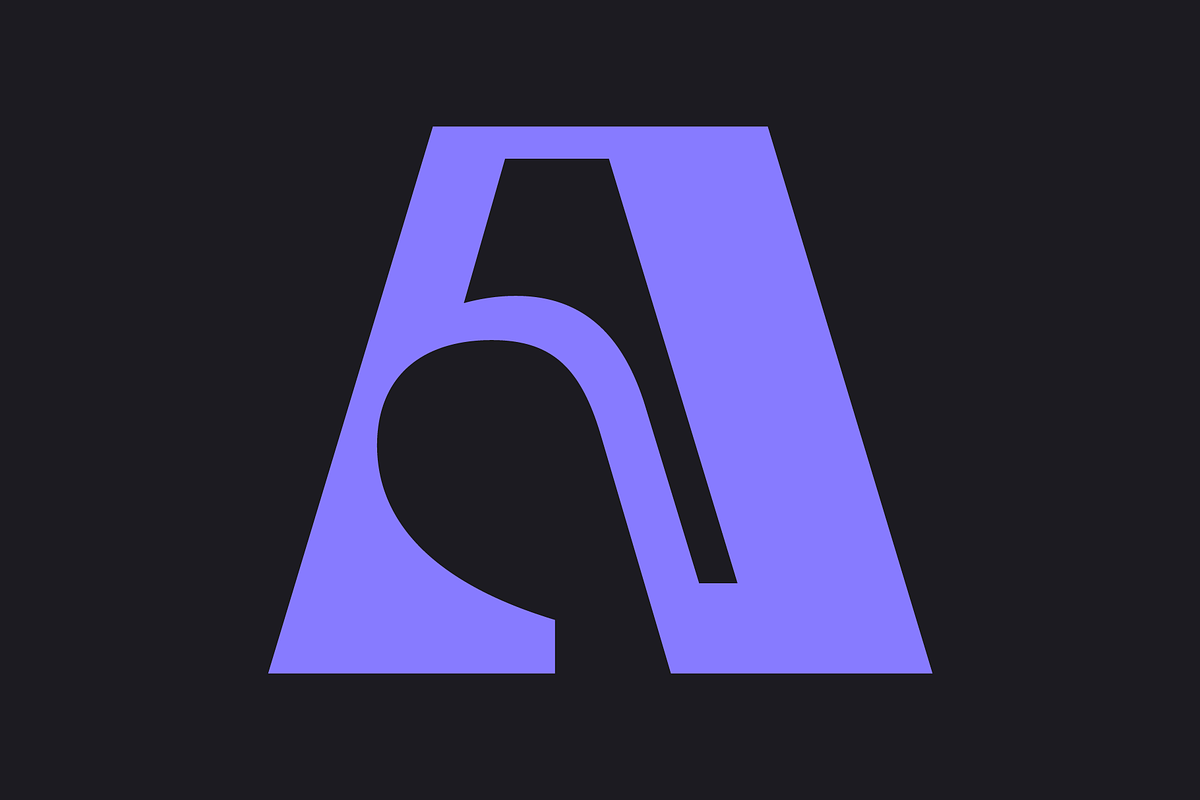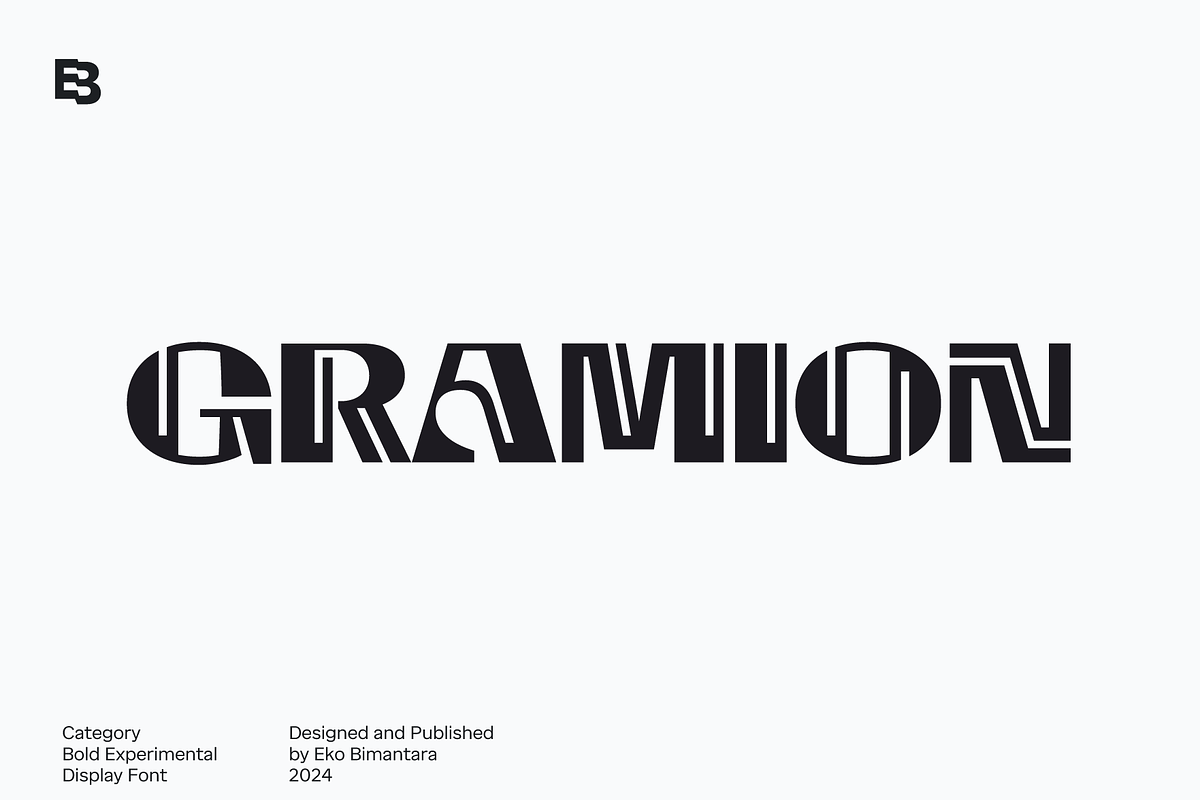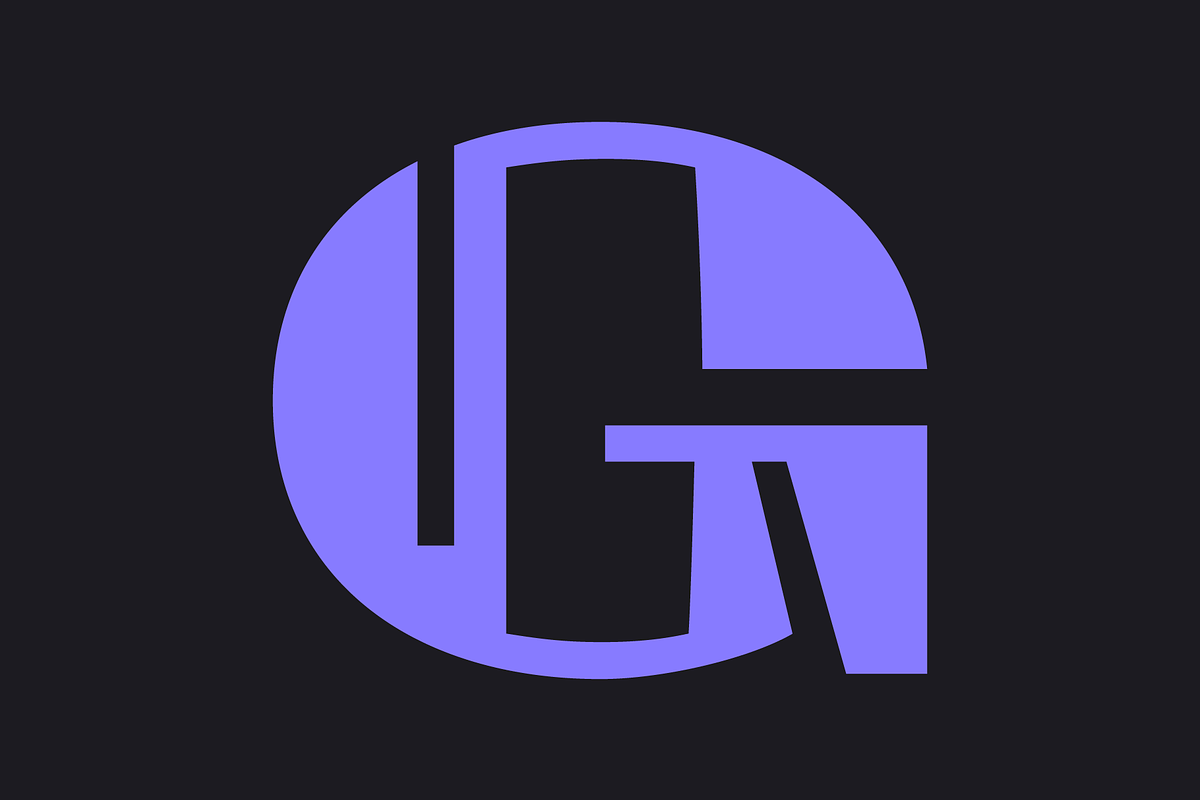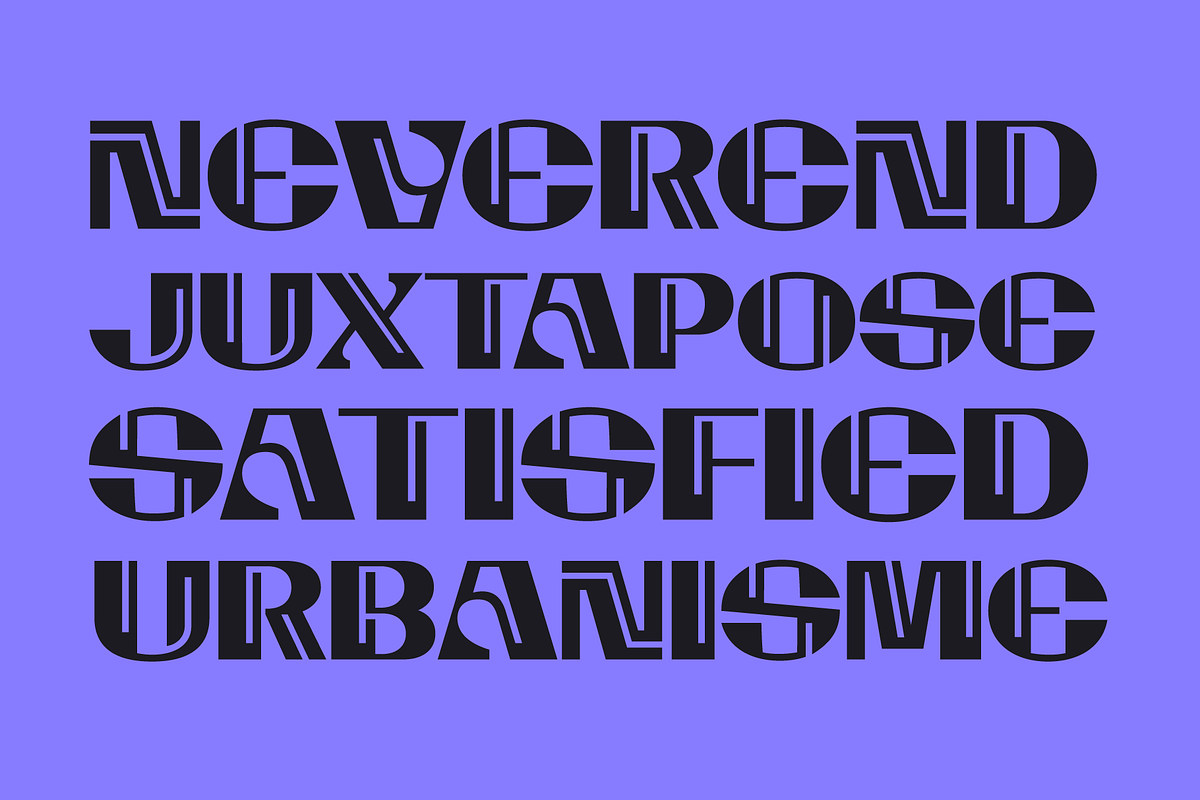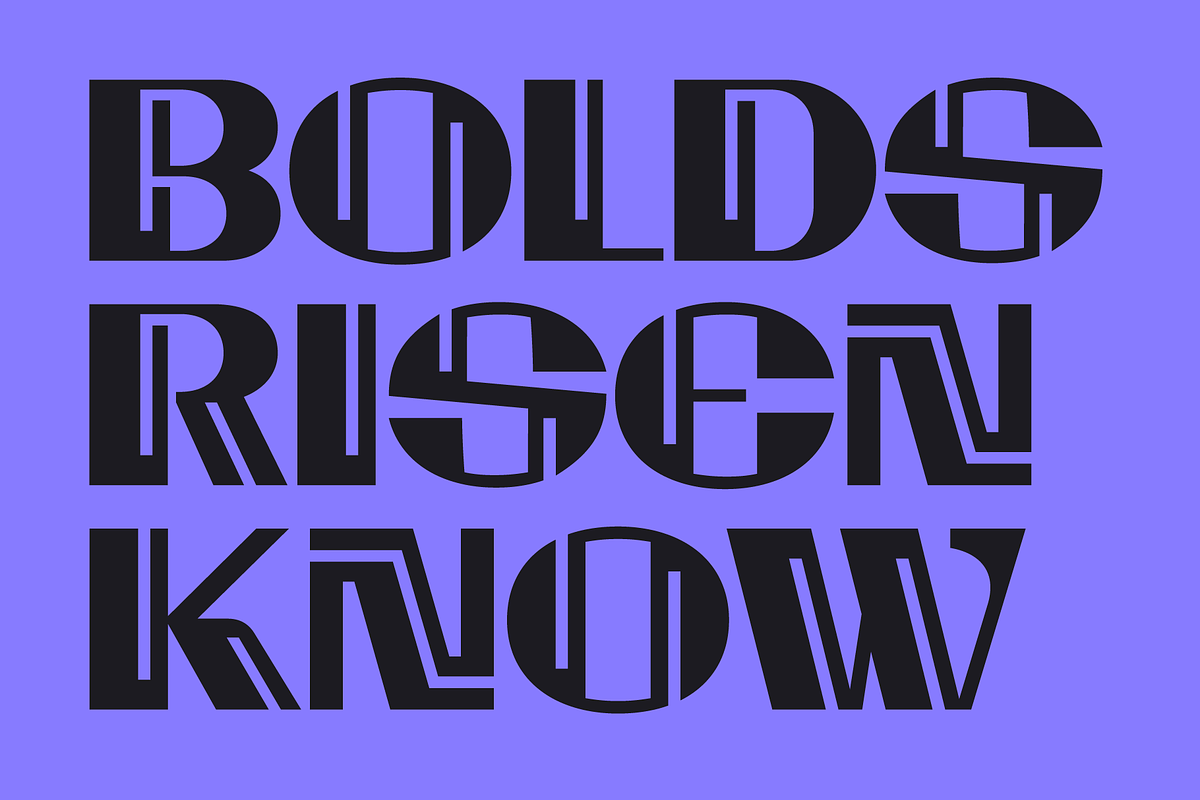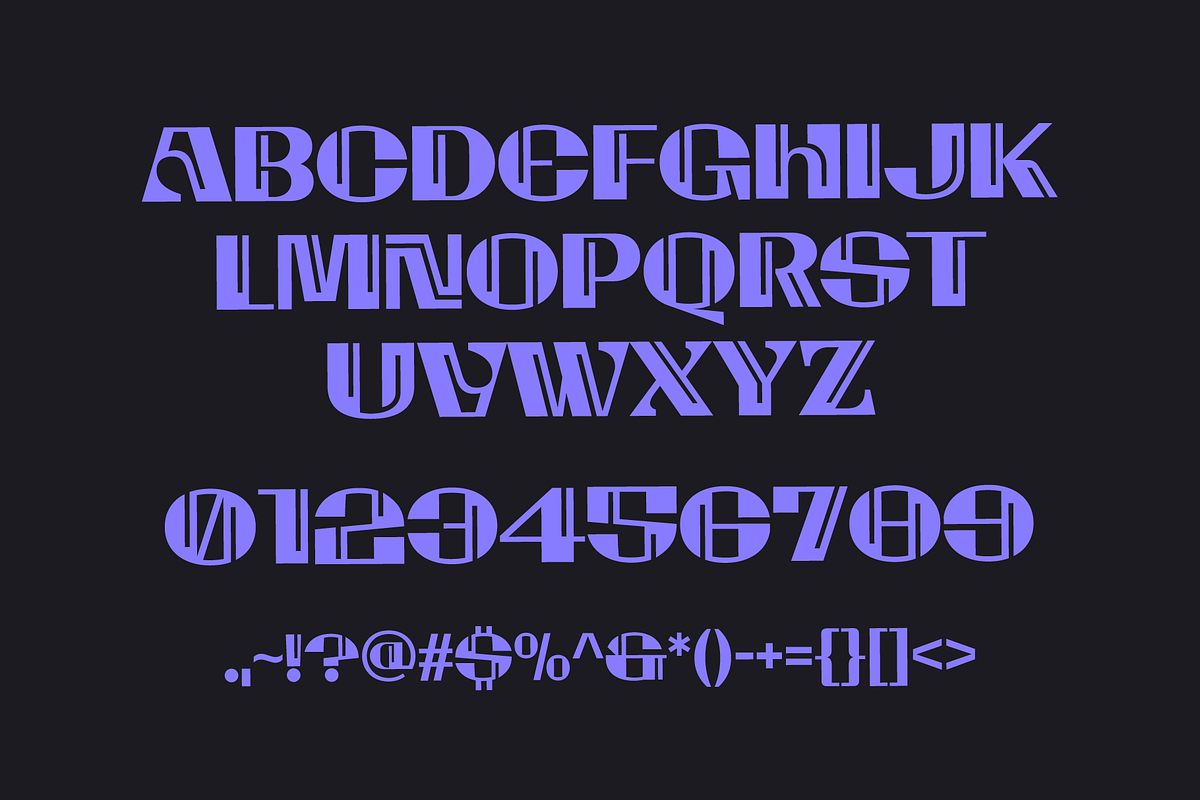
Gramion; Experimental Display Font
Gramion is an all-caps experimental display font with bold, decorative characters that blend art deco and futuristic styles. Its unique and explorative forms make it perfect for projects requiring a modern, classic, or futuristic touch. Ideal for branding, titles, products, and posters, Gramion is well-suited for large-size displays and headers. Its versatility extends across various layout designs, websites, brand identities, product packaging, and broad graphic design and creative purposes, adding a striking, distinctive element to any project.